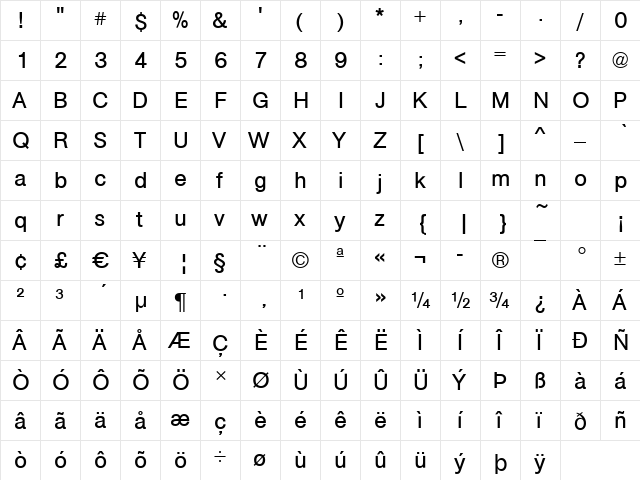
Arezzo Regular
Design Context for Arezzo Typeface
Arezzo takes a measured approach to typography — its balanced proportions and neutral character make it a reliable workhorse for both digital and print work.